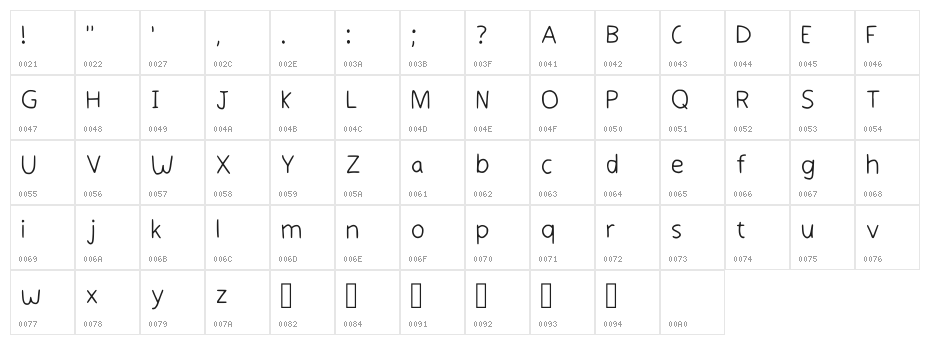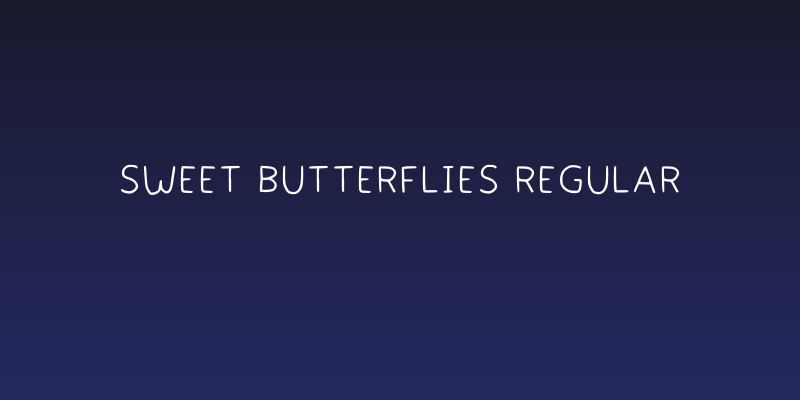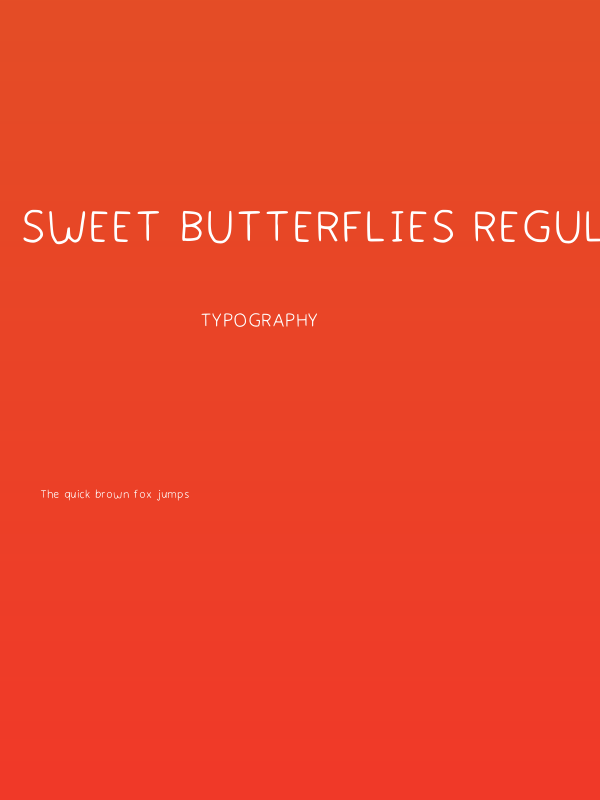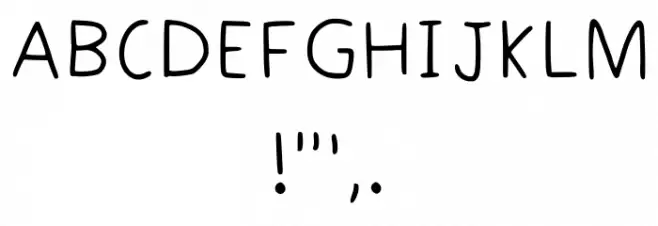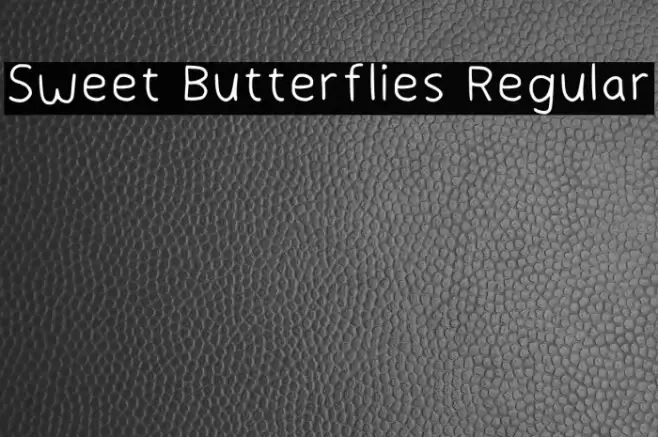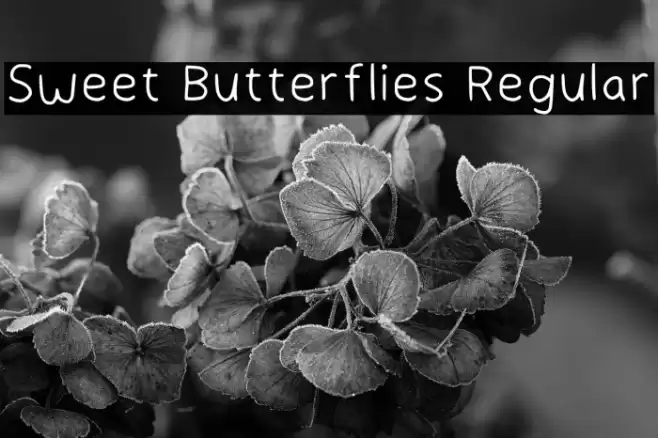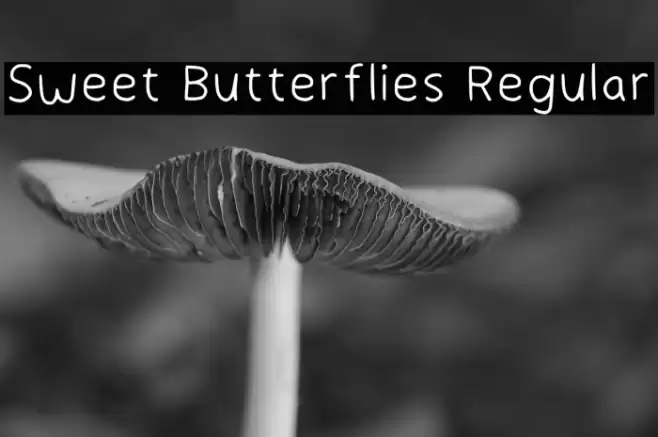
Sweet Butterflies Regular Font
Sweet Butterflies Regular Description
A playful, handwritten style font with a casual and friendly appearance, featuring slightly irregular strokes and a whimsical feel.
| Overall Style | Casual, Playful, Friendly |
| Use Case | Headlines, Body text, Invitations, Children's materials |